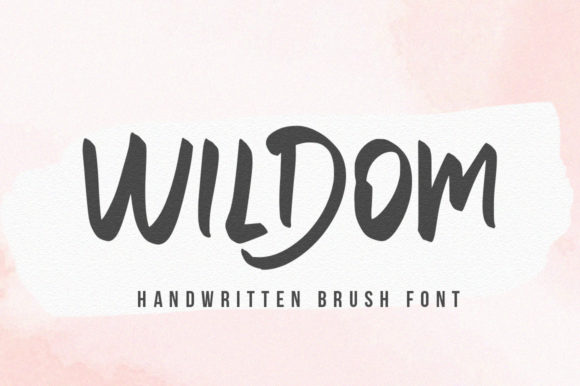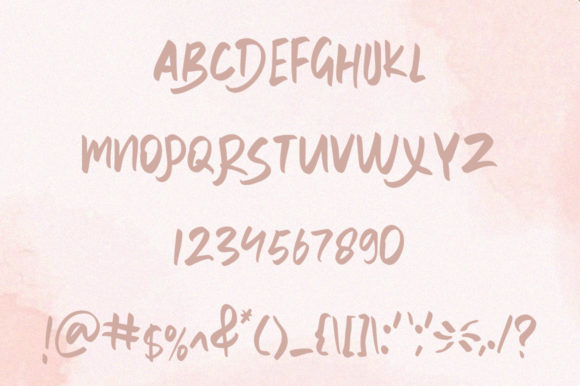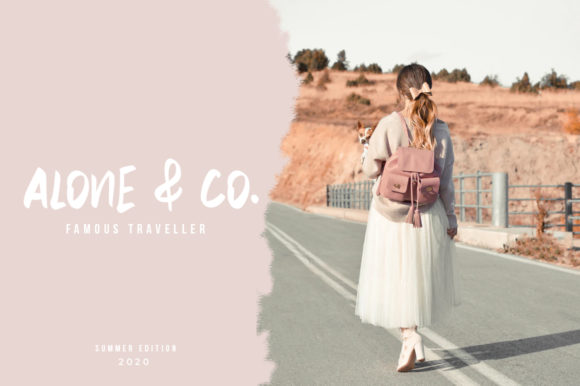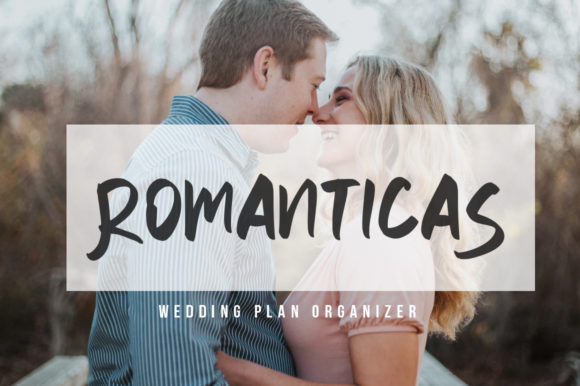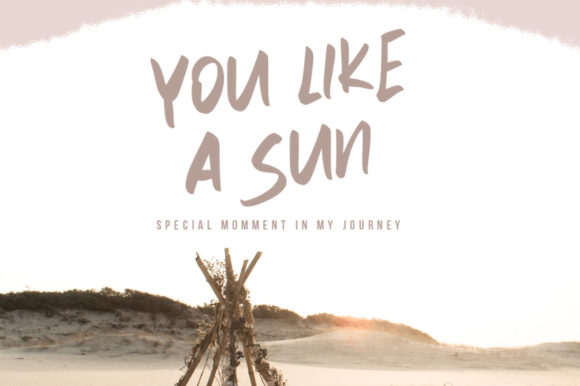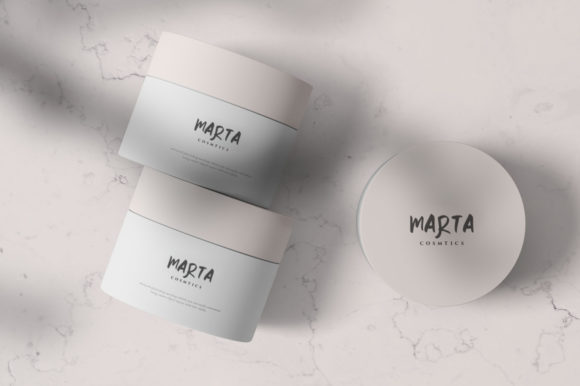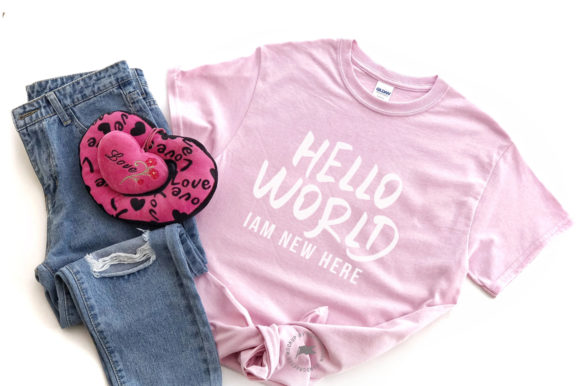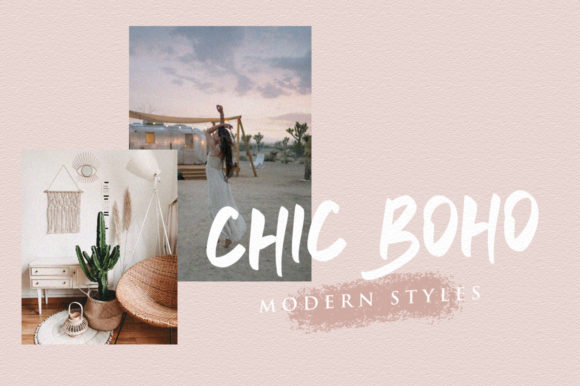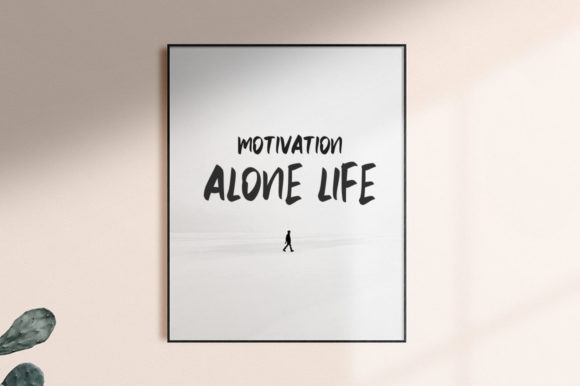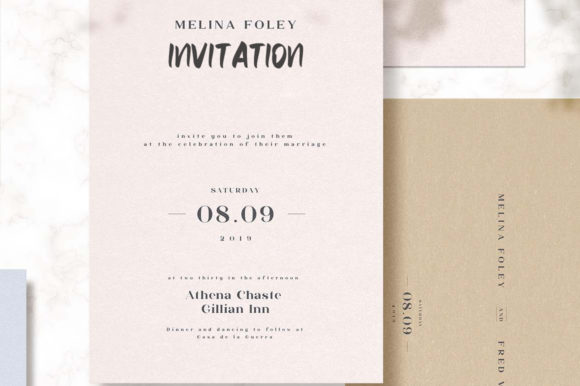
Wildom Font
About Wildom Font
Wildom is a flowing handwritten font, described by an elegant touch, perfect for your favorite projects. Fall in love with its incredibly distinct and timeless style and use it to create spectacular designs!